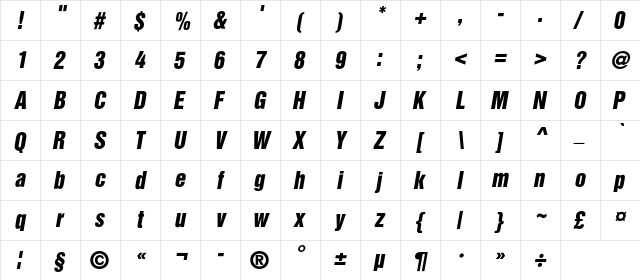
BastionKontrast-Oblique Regular
Design Context for BastionKontrast-Oblique Typeface
BastionKontrast-Oblique offers clean, dependable letterforms without strong stylistic allegiance, making it a practical choice for designers who need flexibility. The slanted form adds forward momentum and visual energy.
Pro Tip: Try BastionKontrast-Oblique for annotation and caption copy alongside an upright companion — the contrast in angle creates a dynamic but ordered typographic system.